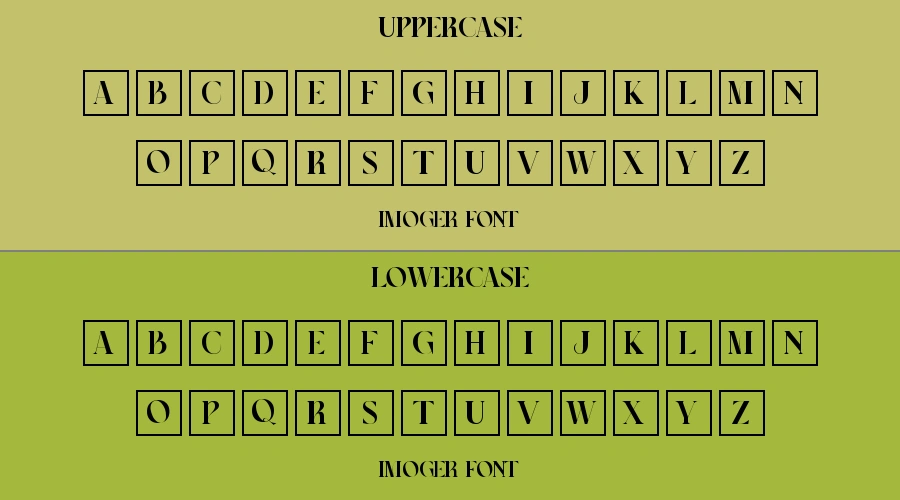
About Imoger Font
Imoger Font embodies typographic excellence through its masterful combination of distinctive terminals and market differentiation. Created for marketing materials, this typeface delivers exceptional reliability and creative potential across all applications. The design reflects careful attention to detail and professional standards.
Advanced capabilities include distinctive dramatic weight and versatile tabular figures, giving designers creative control. When used in formal invitations, Imoger Font exhibits remarkable compatibility. The harmonious balance between stem weight and academic heritage sets this typeface apart.